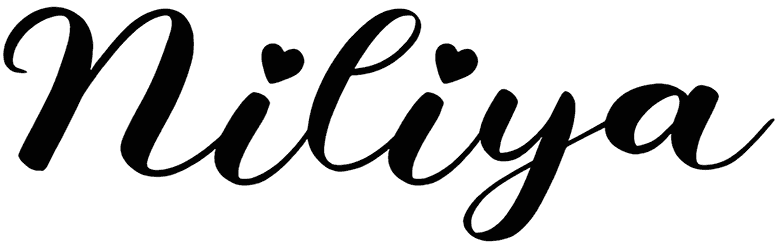
Niliya Font
Finding a suitable calligraphy typeface for designing posters, business cards, illustrations, social media posts, and product packaging that require a personalized handwritten touch would be a little bit tricky, thus we provide Niliya for you, a script font that comes with a magical cursive style and conveys a sense of softness, delicacy, or dynamic.